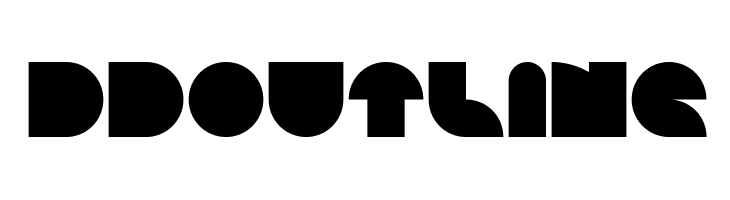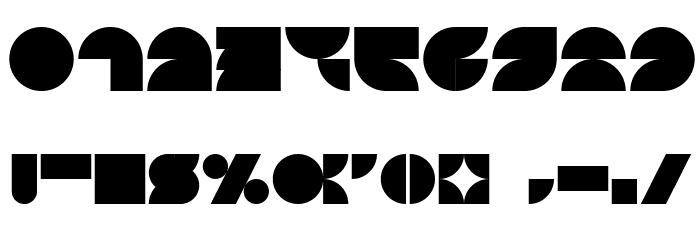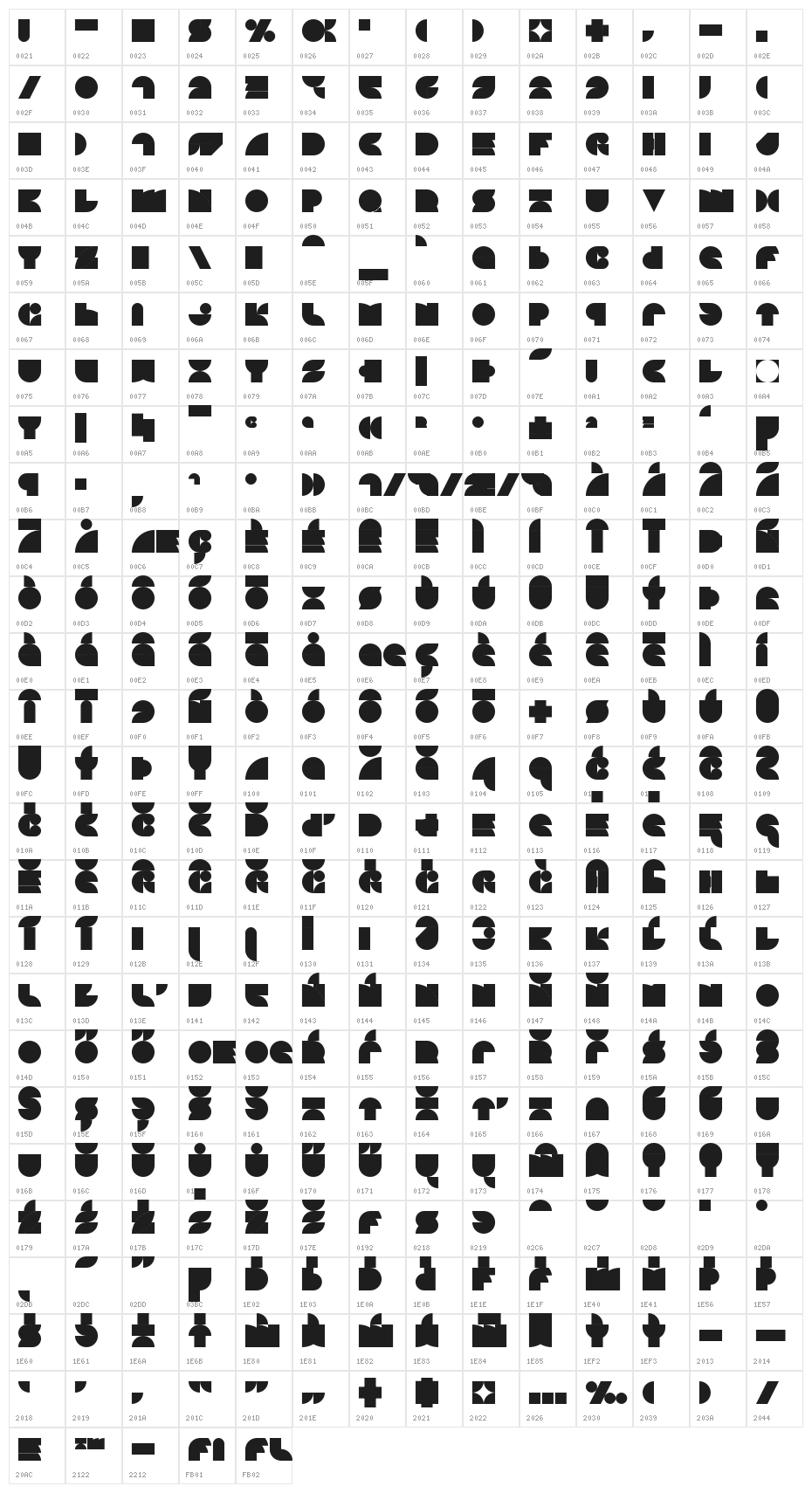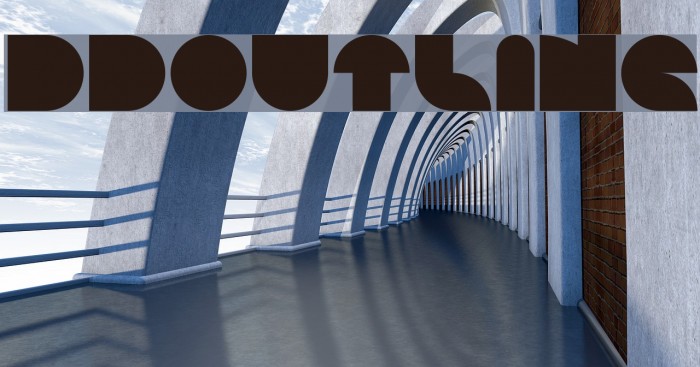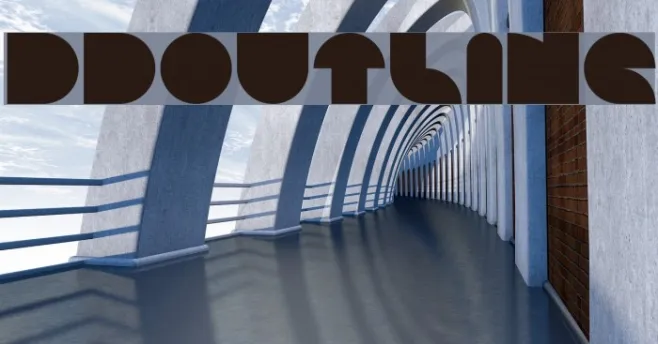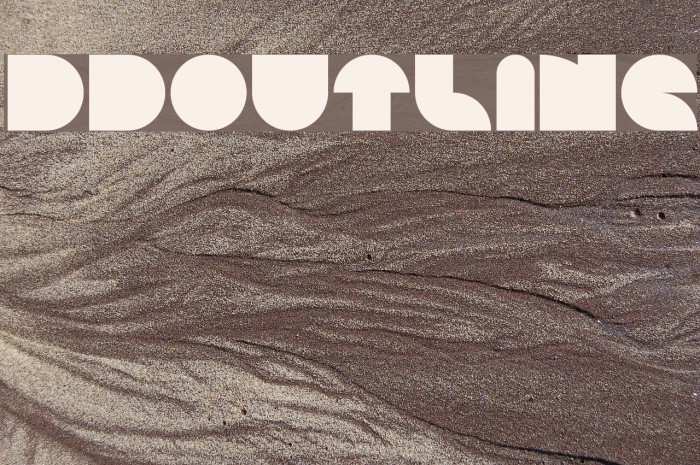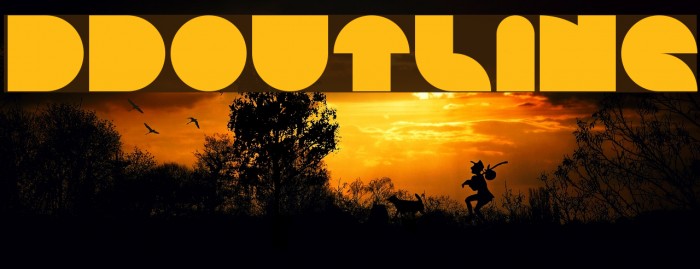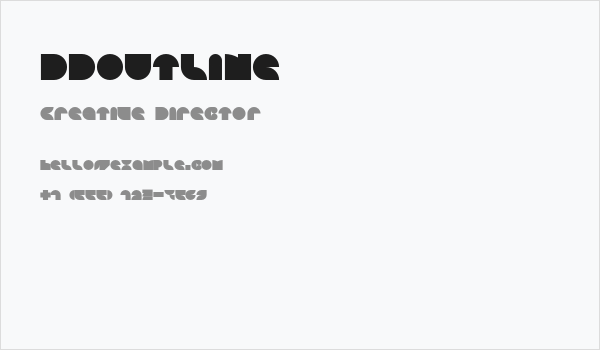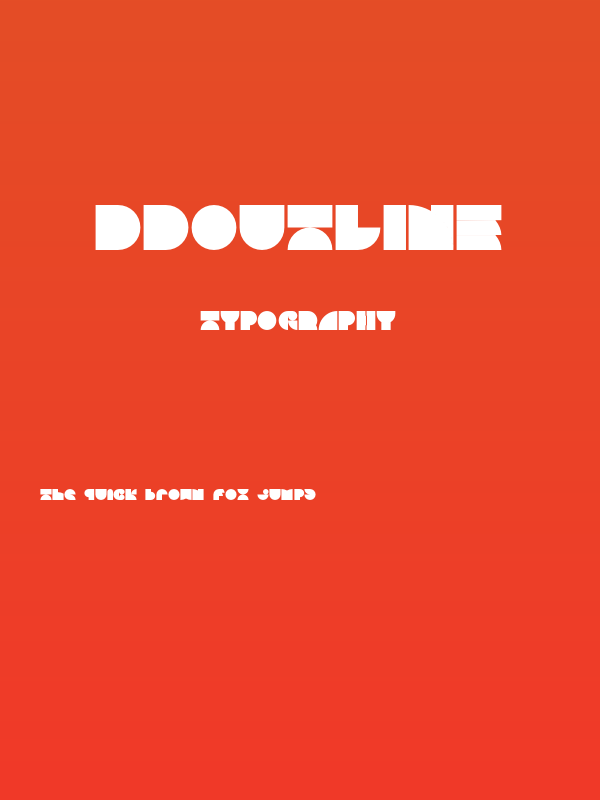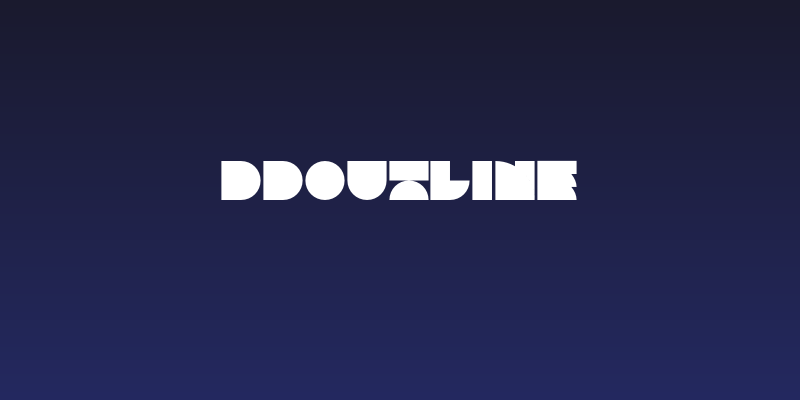
BDOutline Font
BDOutline Description
This font features a bold and geometric design, characterized by its use of solid shapes and sharp angles. The letters are constructed from a combination of circles, semicircles, and straight lines, creating a unique and modern appearance. The uppercase and lowercase letters share a consistent style, with each character maintaining a strong visual presence. The numbers and special characters are equally bold, integrating seamlessly with the overall design. This font's distinct style makes it stand out, offering a futuristic and artistic vibe.